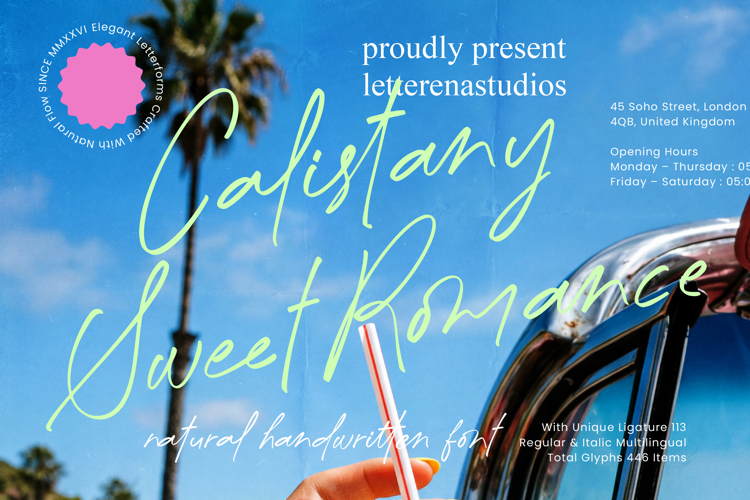
Calistany Sweet Romance - Natural Handwritten Font
Elevate your creative vision with the charm of Calistany Sweet Romance - Natural Handwritten Font. This masterfully crafted typeface captures the essence of organic penmanship, offering a sophisticated aesthetic that feels both and professional. Its fluid letterforms and natural rhythm provide an unmistakable sense of elegance, making it an essential tool for designers seeking to add a human touch to their digital compositions and artistic projects.
Engineered for high-impact visual storytelling, Calistany Sweet Romance - Natural Handwritten Font is the definitive choice for luxury branding and high-end packaging. This typeface is perfect for wedding stationery, editorial design, social media layouts, and bespoke logo development. By blending a modern script vibe with a timeless appeal, it ensures your message resonates with clarity and grace, making it a versatile design solution for any premium lifestyle brand.
Experience unparalleled flexibility with a typeface designed to bridge the gap between art and global communication. With its extensive multilingual support, Calistany Sweet Romance - Natural Handwritten Font adapts seamlessly across global markets, making it incredibly versatile for international projects. Featuring over 113 unique ligatures and a comprehensive library of 446 glyphs, it allows for limitless customization and a truly handcrafted appearance in every sentence you compose.